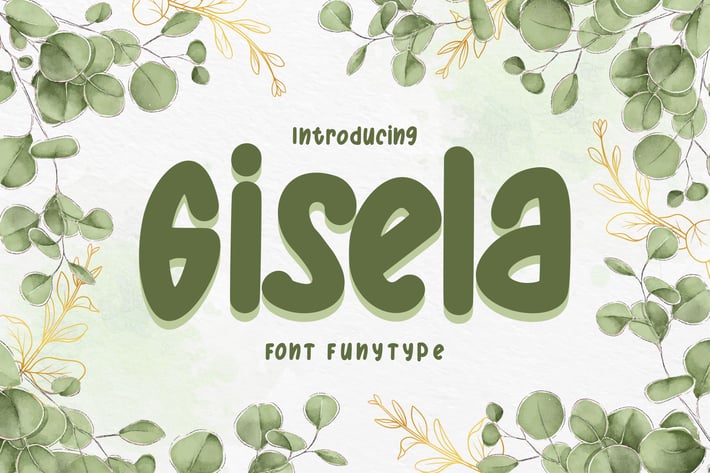
Gisela | Font FunyType
Gisela | Font FunyType with a calligraphy style, So beautiful on invitation like greeting cards, branding materials, business cards, quotes, posters, and more!